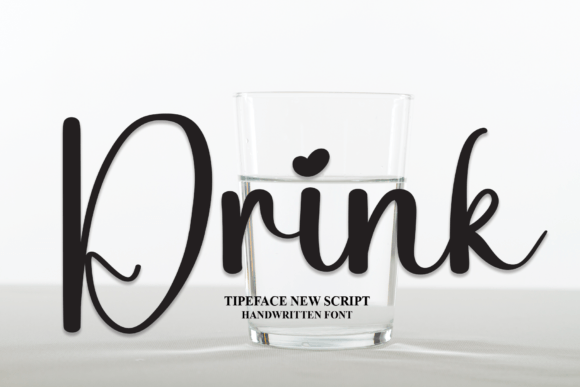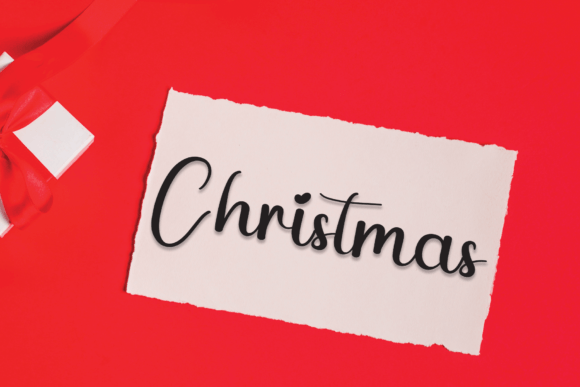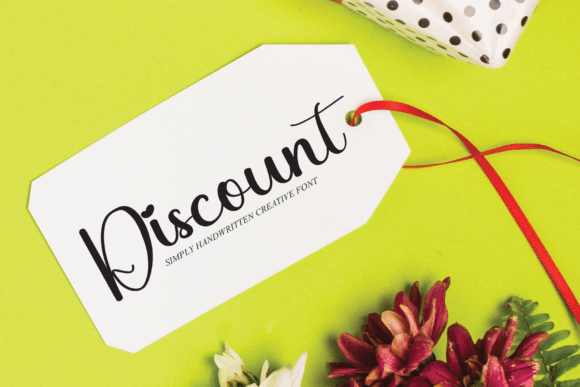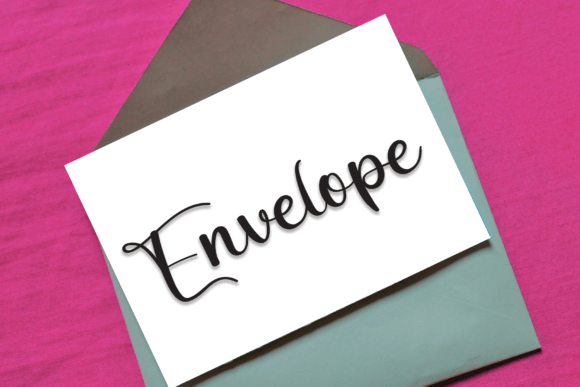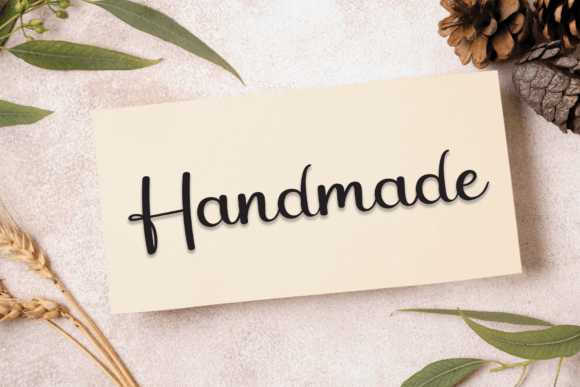
Drink Font
About Drink Font
Drink font is a simple and friendly handwritten typeface designed to add a warm and personal touch to your creative projects. Whether you are working on crafts, digital designs, presentations, or greeting cards, this font offers versatility and charm that make it a reliable choice for any occasion.
Ideal Uses for Drink Font
Drinkfont works perfectly in many design scenarios, including:
• Handmade crafts and DIY projects
• Digital content creation such as websites and social media graphics
• Presentation slides requiring a friendly and clear font
• Greeting cards, invitations, and personalized stationery
Its balanced and readable design ensures your message is clear while maintaining a heartfelt, handwritten vibe.